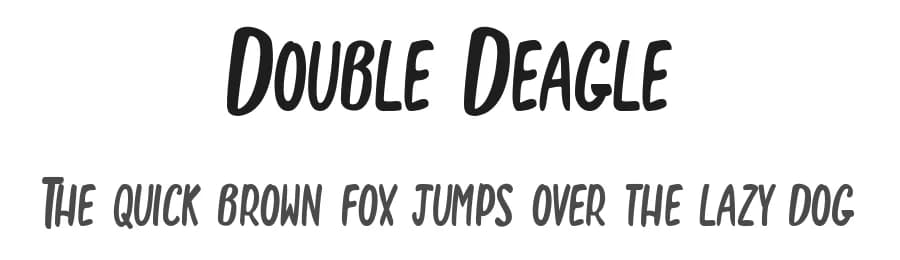
About Double Deagle Font
Double Deagle is a script & handwritten font designed by La Matrice | Maël Keïta Valère. It includes 205 glyphs, a regular weight, TTF (TrueType) format, and 210 languages. Double Deagle is free to download; check the license details on this page before commercial use. Script & handwritten fonts like Double Deagle work best for wedding invitations, greeting cards, signatures, and elegant branding.
Double Deagle Font is a script font that shines as a display or heading face. Pair it with a clean sans-serif or serif font for body text — the contrast creates a clear hierarchy while the two styles stay balanced and easy to read.
Double Deagle Font